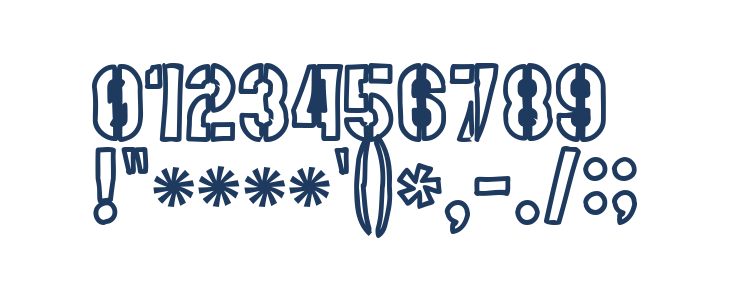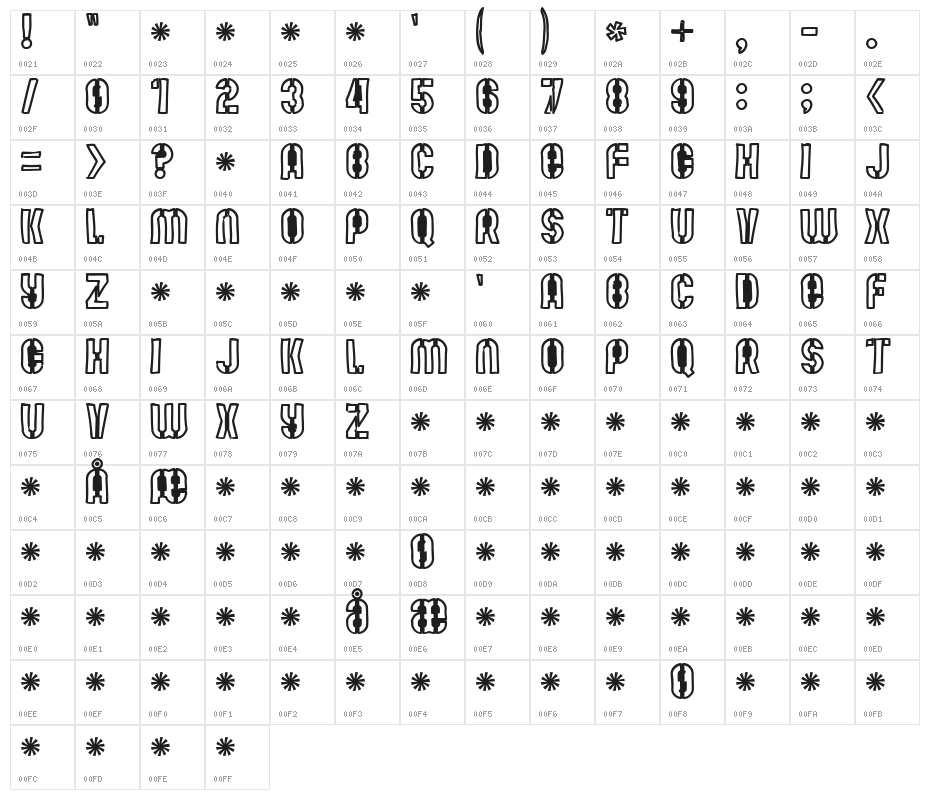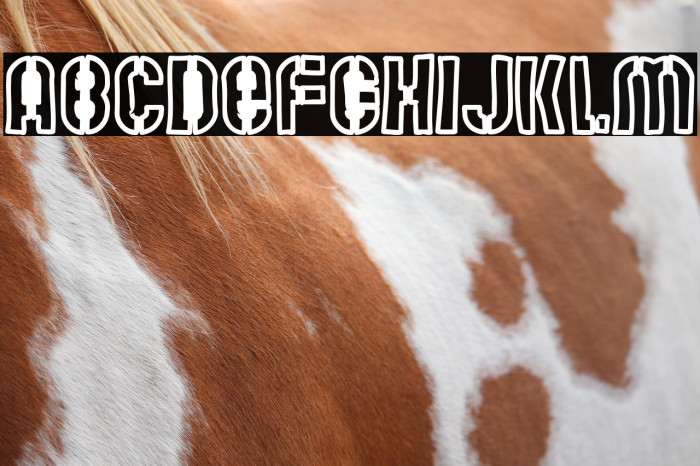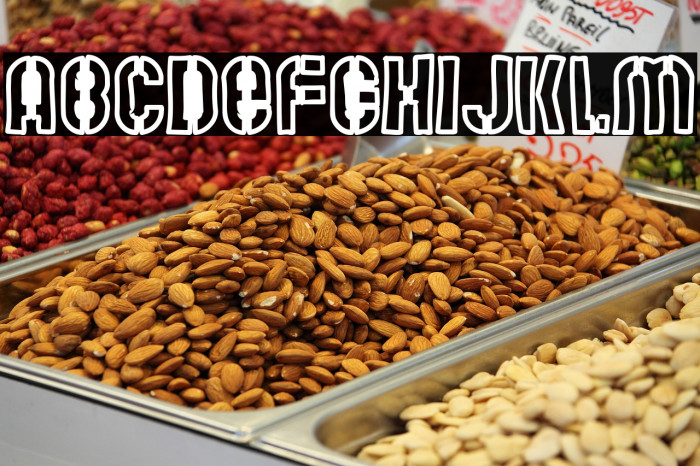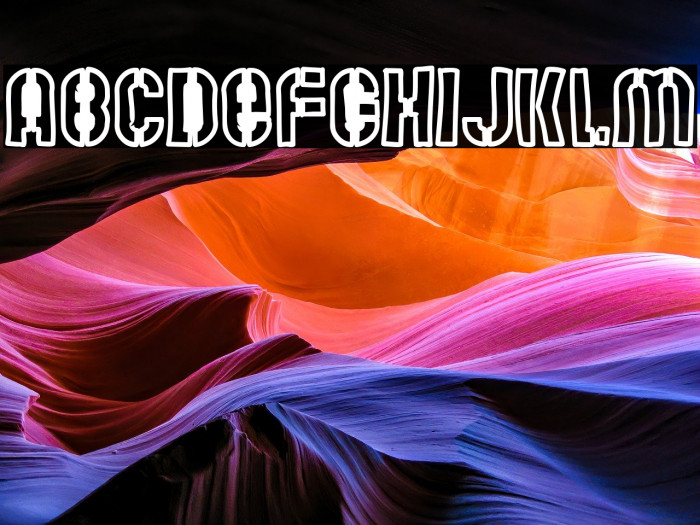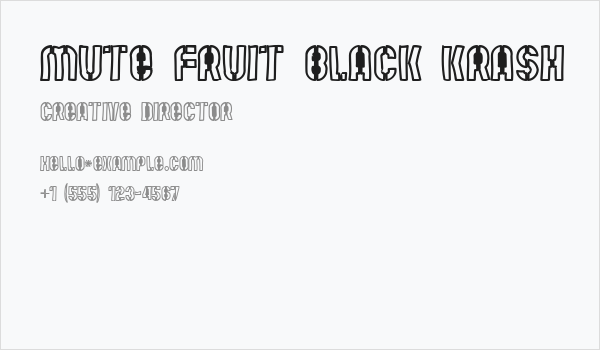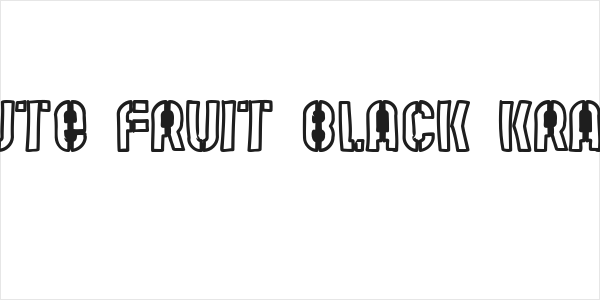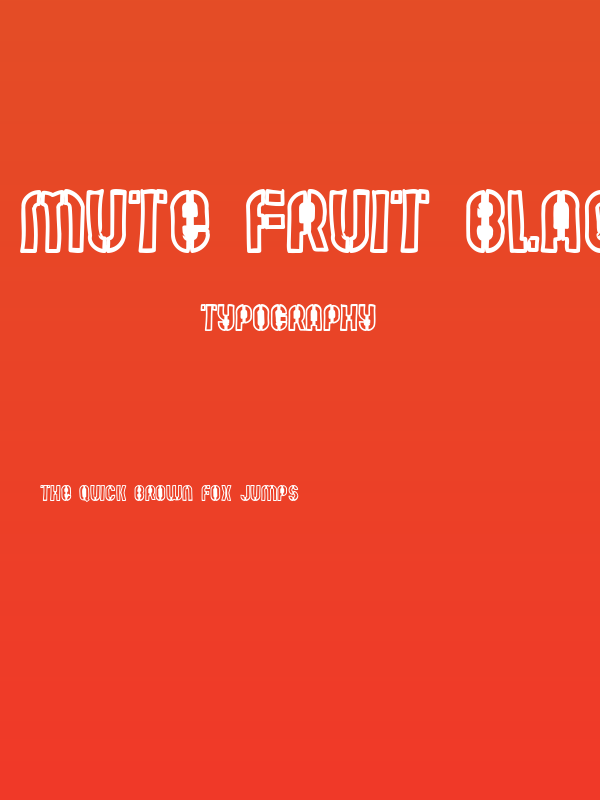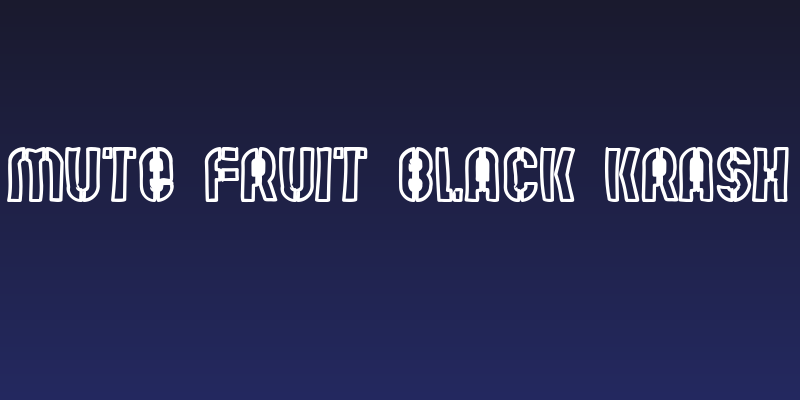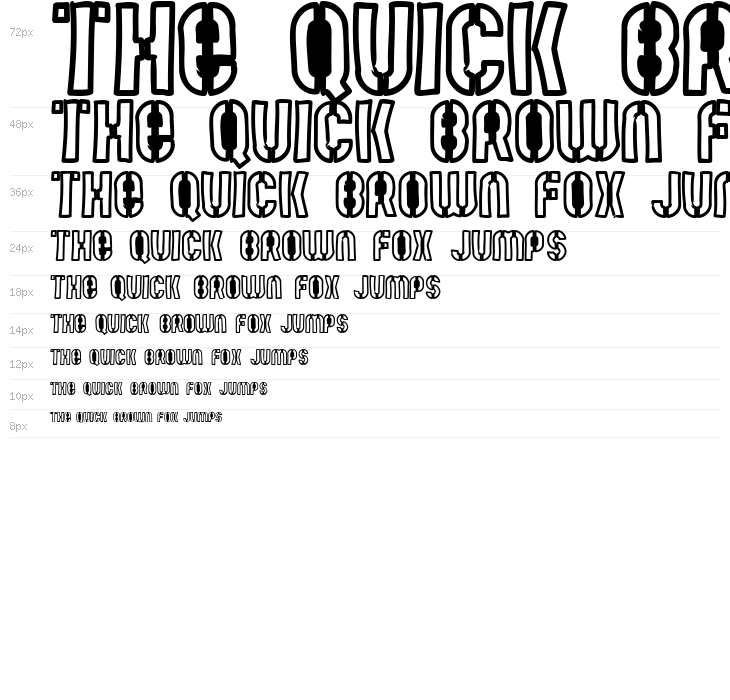
Mute Fruit Black Krash Font
Mute Fruit Black Krash Description
This font features a bold and playful design with a unique, artistic flair. The characters are outlined with a thick black stroke, creating a striking contrast against the white interior. Each letter has a quirky, irregular shape that gives it a dynamic and energetic feel. The font's style is reminiscent of graffiti or street art, making it ideal for projects that require a bold and unconventional look. The numbers and special characters maintain the same playful and bold characteristics, ensuring consistency throughout the font set.
Proposed ProjectsIdeal for street art-inspired designs, posters, album covers, and creative branding projects.